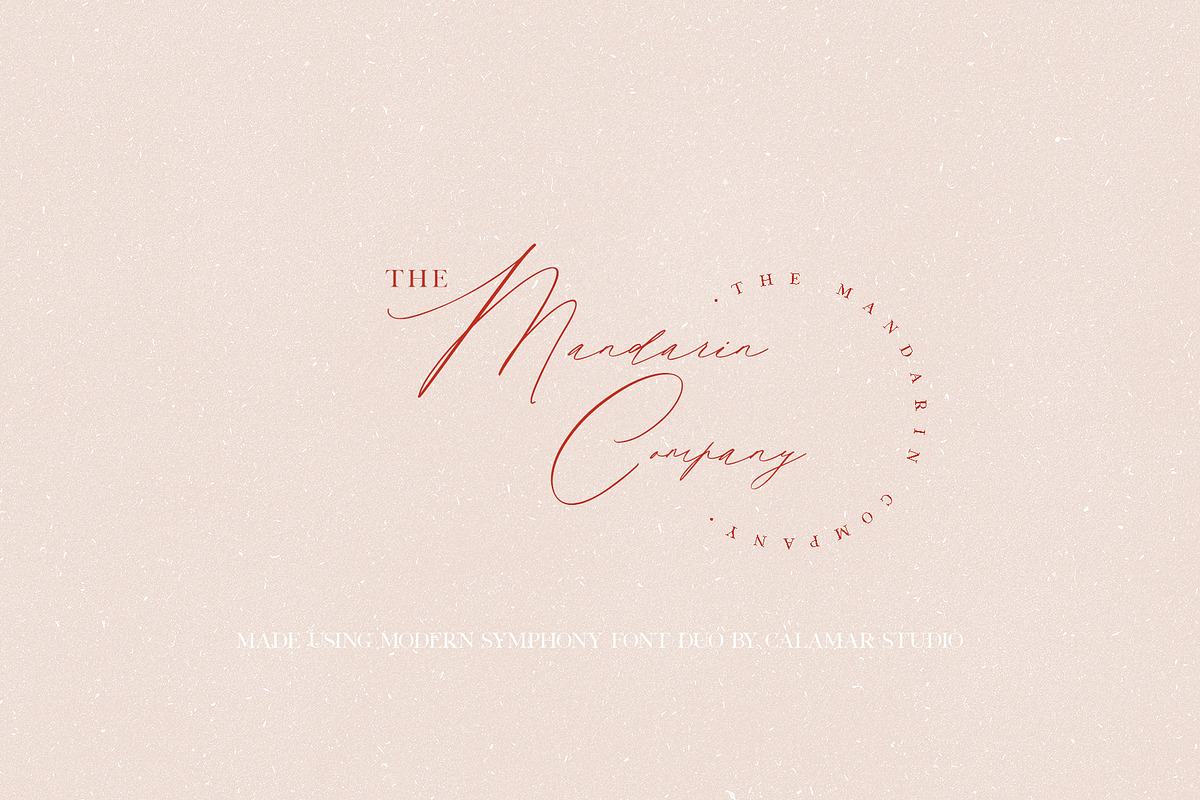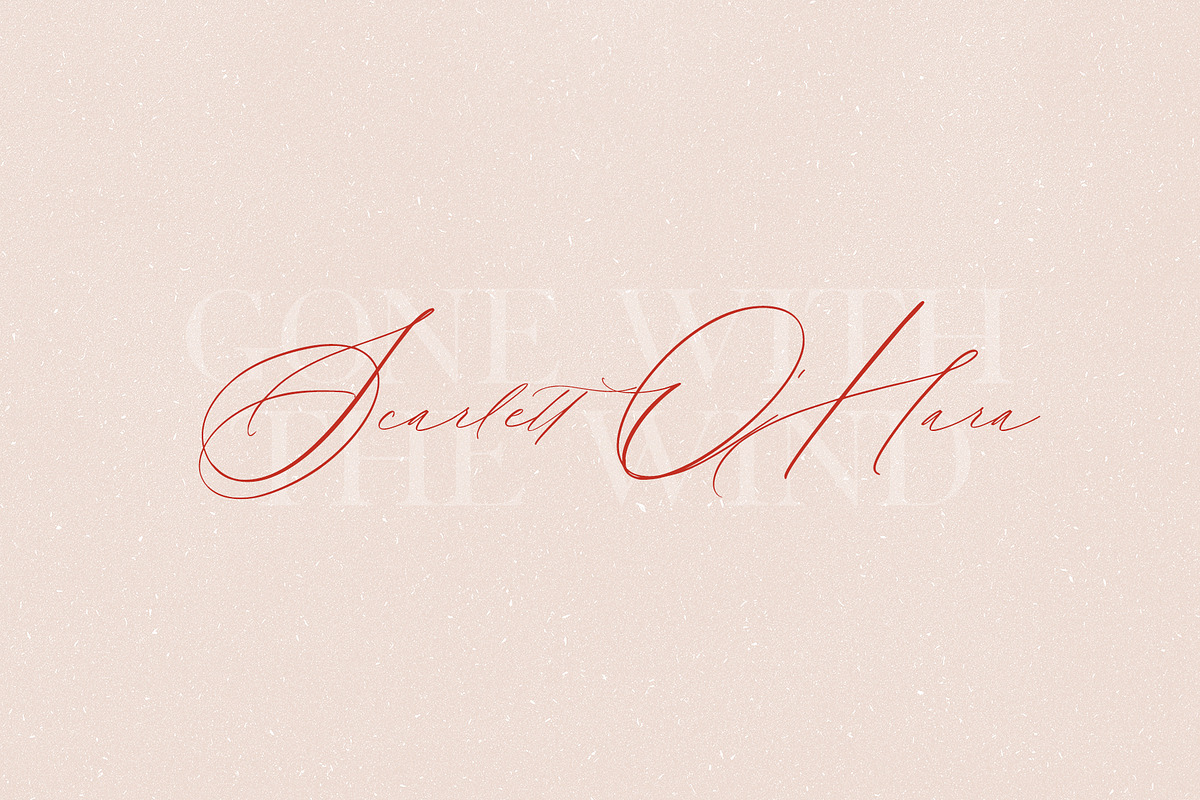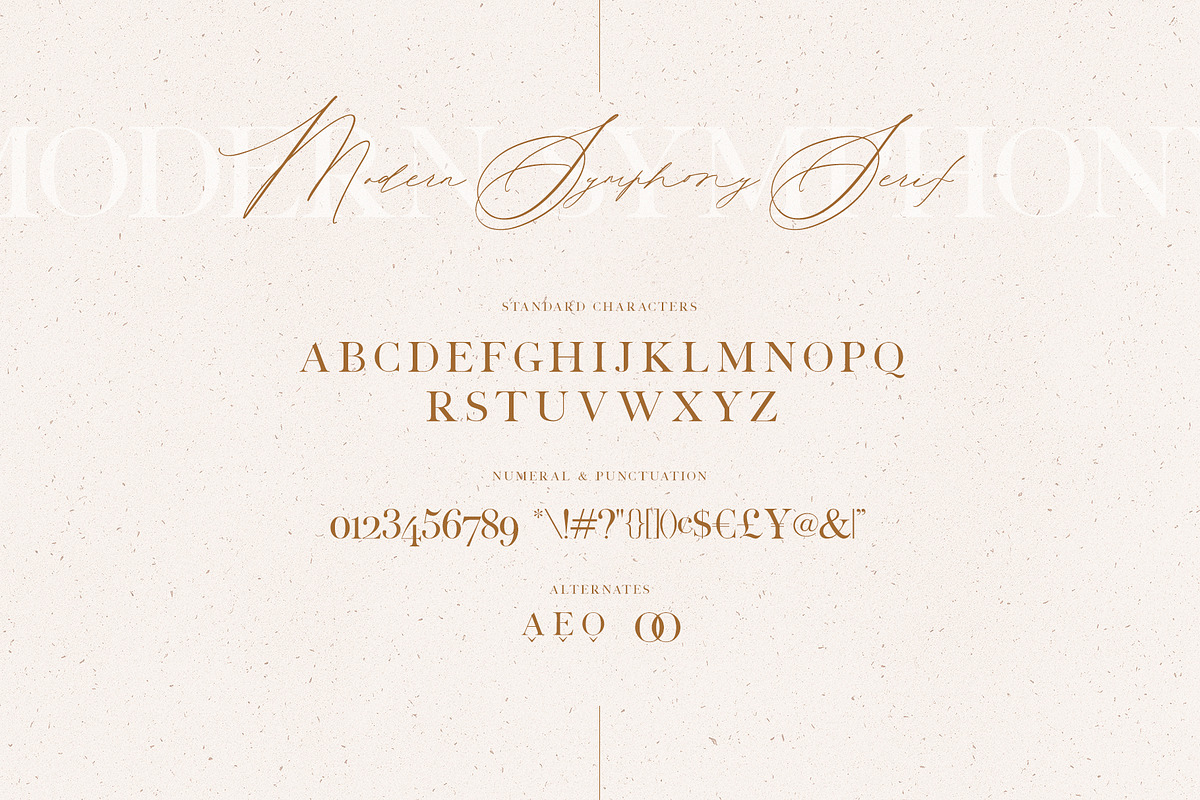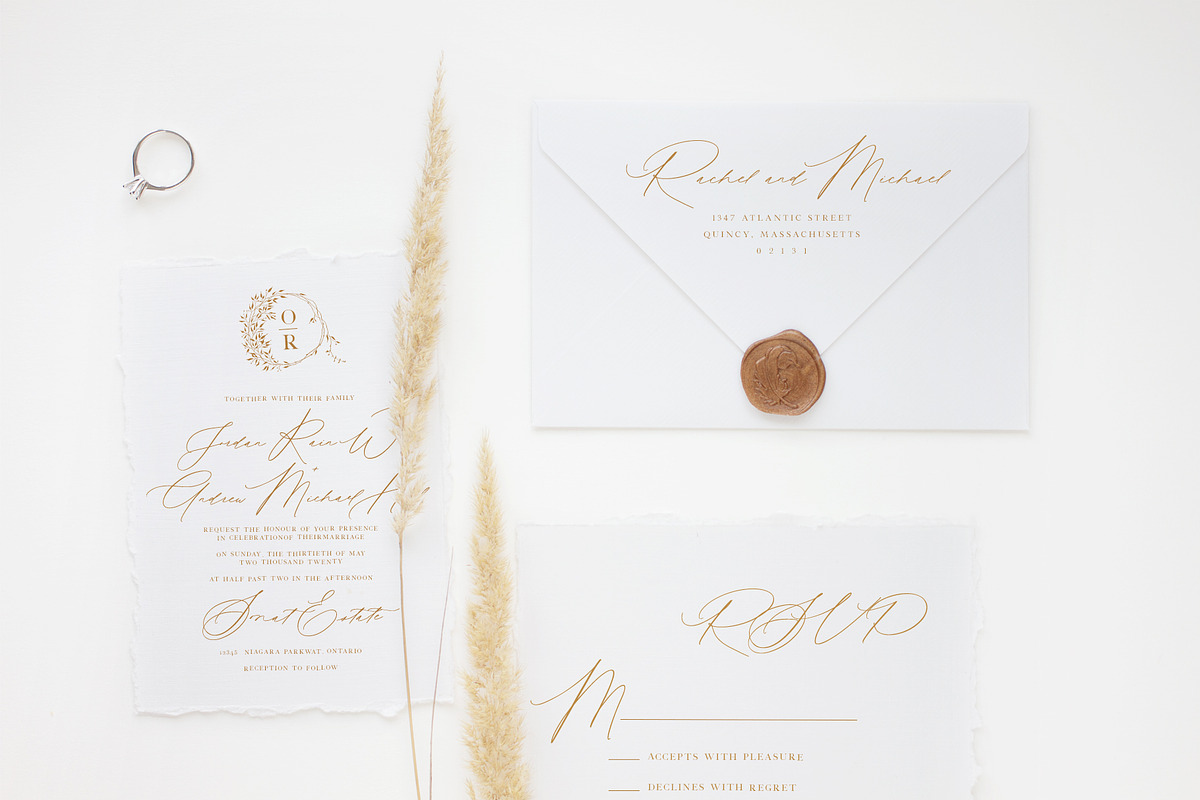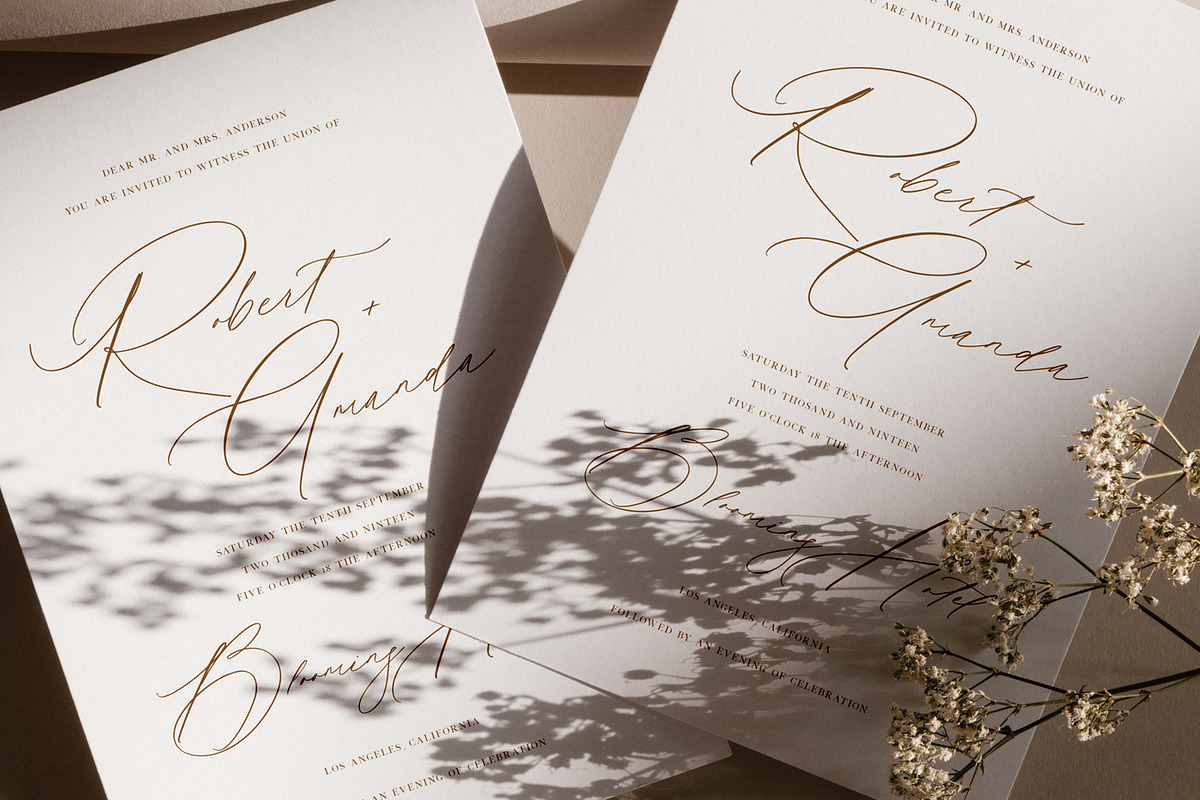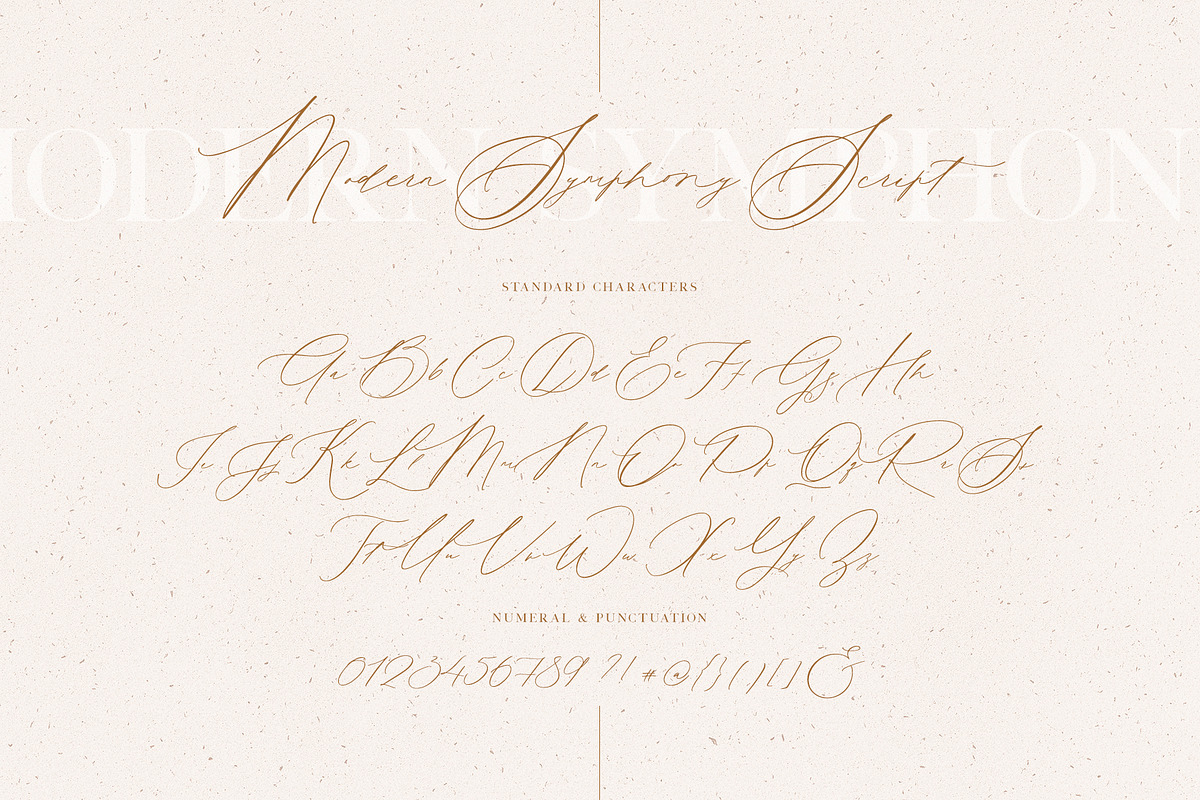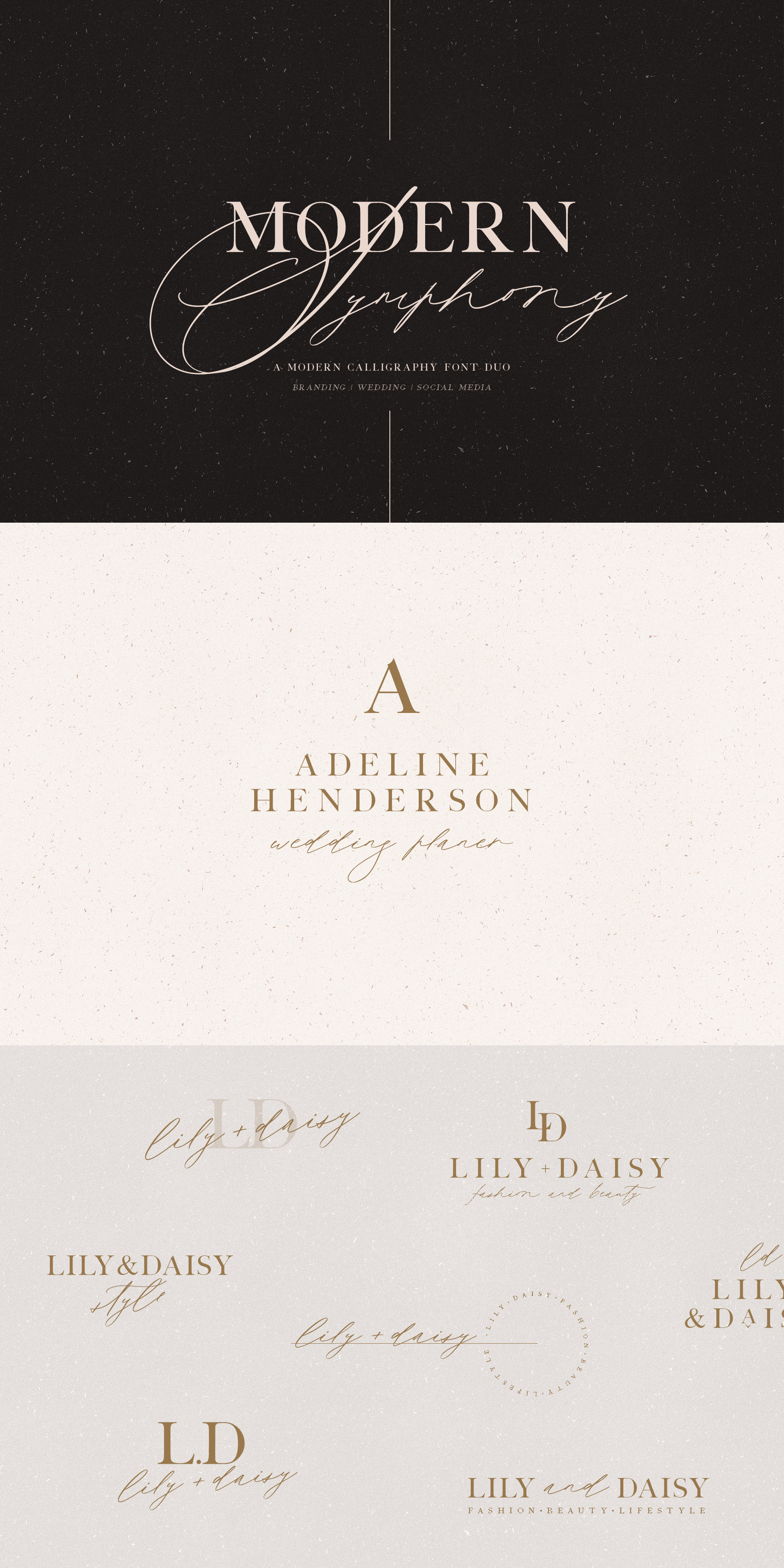
Modern Symphony Font Duo
The Modern Symphony Font Duo is trending and elegant font pair that will bring in your design a unique style and luxury look. This font duo particularly well suited for wedding invitations, cards and feminine branding.
Modern Symphony Font Duo includes two beautiful fonts - elegant Script and Serif fonts.
Modern Symphony Script includes three full sets of gorgeous uppercase and lowercase letters, numerals, punctuation and a large range of ligatures to perfectly re-create natural calligraphy. And you can check them all in this presentation.
Modern Symphony Serif is a classy high contrast font that contains only uppercase characters, numerals and punctuation.